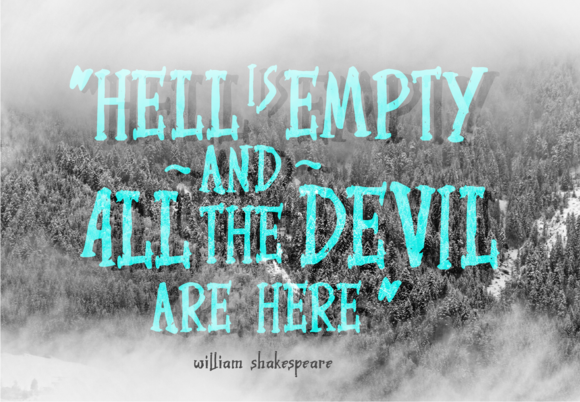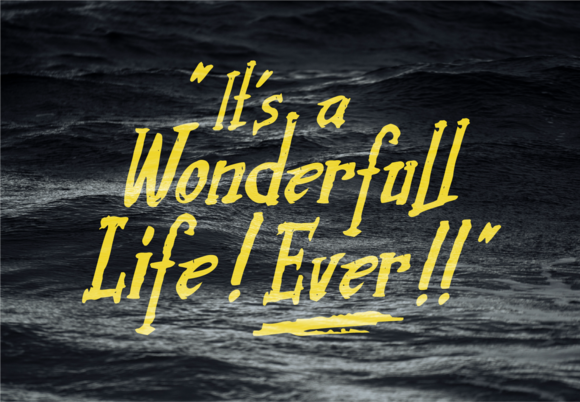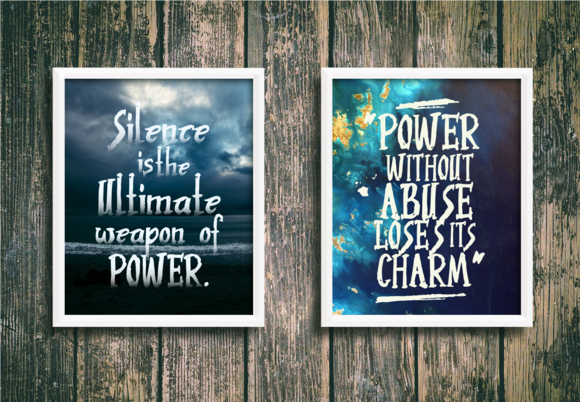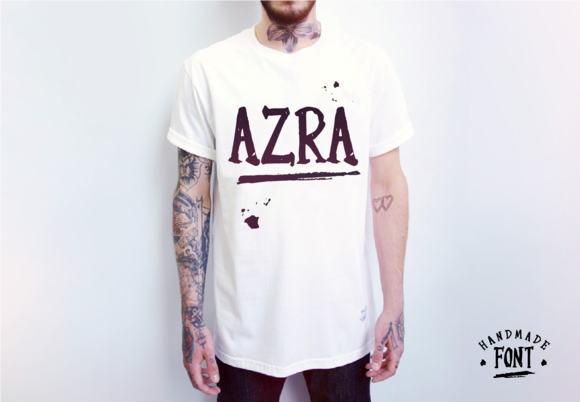
Introducing Azra Font: A Rough-Edged Brush Font with Personality
Are you tired of using the same old fonts in your designs? Do you want to add a touch of personality and edge to your projects? Look no further than Azra Font, a hand-crafted paint brush font that is sure to give your designs a tough and rugged look. In this article, we’ll take a closer look at Azra Font, its features, and how you can use it to elevate your designs.
What is Azra Font?
Azra Font is a rough-edged brush font that is designed to add a touch of grit and personality to your designs. It comes in two versions: Azra Regular and Azra Italic, giving you flexibility and options for your design projects. This font is perfect for designers and crafters who want to add a unique and distinctive touch to their work.
Key Features of Azra Font
- Rough-Edged Brush Font: Azra Font has a rough, hand-crafted look that gives it a unique and distinctive personality.
- Two Versions: Azra Font comes in two versions: Azra Regular and Azra Italic, allowing you to choose the one that best fits your design needs.
- Hand-Crafted: Azra Font is a hand-crafted font, giving it a personal and authentic touch.
- Tough and Rugged: Azra Font has a tough and rugged look that is perfect for designs that require a bit of edge.
Who is Azra Font for?
Azra Font is perfect for designers and crafters who want to add a unique and distinctive touch to their work. This font is ideal for:
- Graphic Designers: Azra Font is perfect for graphic designers who want to add a touch of personality to their designs.
- Crafters: Azra Font is ideal for crafters who want to add a unique and distinctive touch to their handmade projects.
- Branding and Packaging: Azra Font is perfect for branding and packaging projects that require a bold and attention-grabbing font.
How to Use Azra Font
- Pair it with Other Fonts: Azra Font looks great when paired with other fonts. Try pairing it with a clean and simple font for a bold and striking contrast.
- Use it for Headlines: Azra Font is perfect for headlines and titles. Use it to add a touch of personality and edge to your designs.
- Experiment with Colors: Azra Font looks great in bold and bright colors. Experiment with different colors to find the one that works best for your design.
| Font Name | Azra Font |
| Author | Esui Studio |
Azra Font is a rough-edged brush font that is sure to add a touch of personality and edge to your designs. With its hand-crafted look and two versions, Azra Regular and Azra Italic, this font is perfect for designers and crafters who want to add a unique and distinctive touch to their work. Whether you’re a graphic designer, crafter, or branding expert, Azra Font is a great addition to your font library.